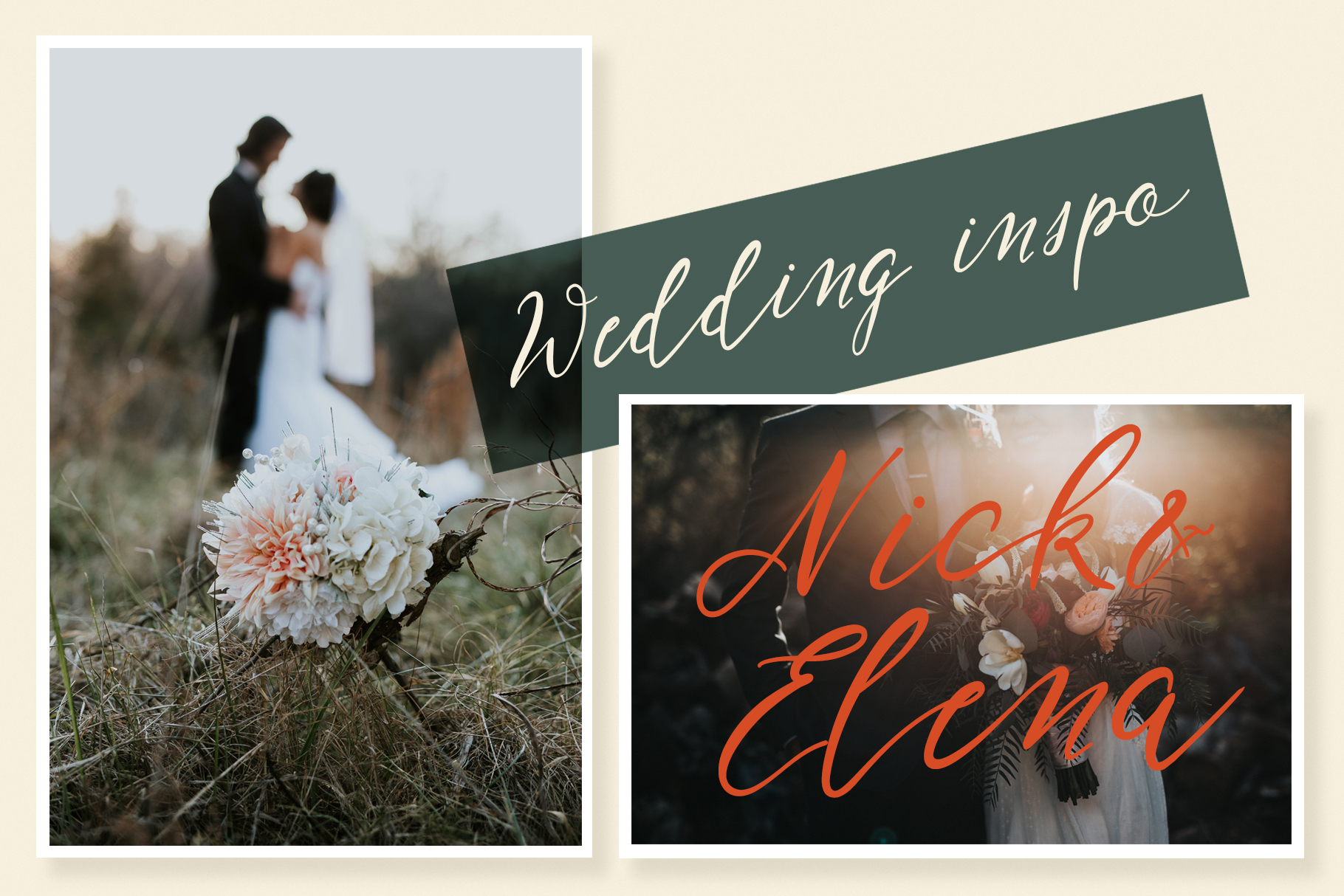
Free Wedding Script Font Free Download | Premium Fonts
Free and Premium Quality Fonts - Best Premium FontsWe have the best collection of free wedding fonts. Therere hundreds of font available on the internet and its just terrible to check all of them and choose one especially under a lot of express during the wedding planning. Below are the easy steps to download wedding invitation fonts wedding script fonts or save the date fonts for your save the date cards.
wedding script font free download
Wedding script font free download. It will simply look amazing. If youre thinking of doing diy wedding invitations or custom the font on your wedding invitation cards the trick is all about finding the right font. The free wedding font carolina mountains is a calligraphy font thats perfect for a rustic casual and outdoor wedding. Wonderfebia script wedding font.
It has a feeling of charm and relaxation and is easy to read while being a truly beautiful script. 1001 free fonts offers a huge selection of free wedding fonts for windows and macintosh. The invitation cards should feature content written in artistic font style. Choose from a wide aura of wedding script fonts to fill the content of your wedding invitation card.
Gardenia script free elegant script font gardenia script is an outstanding example of tender and elegant hand crafted typefaces perfect for almost all kinds of creative design projects. Wonderfebia is script wedding font with modern calligraphy style so much opentype feature include of the font. This free wedding font download includes uppercase and lowercase letters. Sophia script is a new handwritten stylish copperplate calligraphy fonts combines from copperplate to contemporary typeface classic and elegant touch.